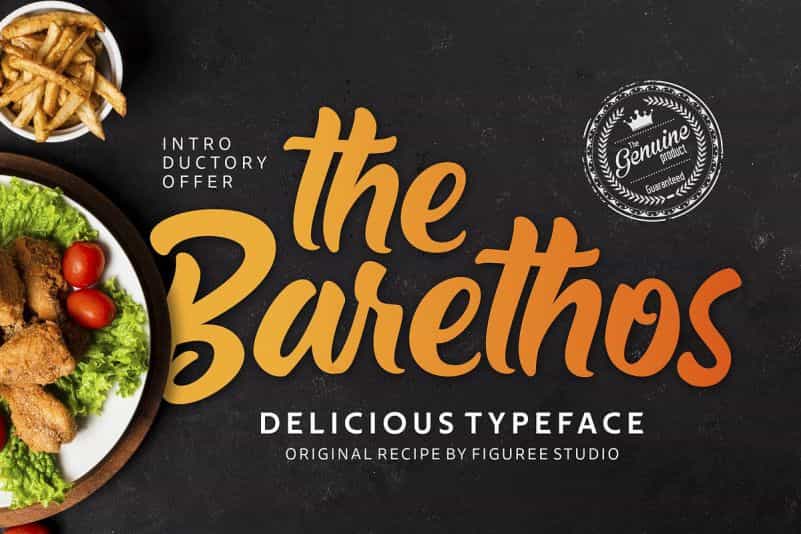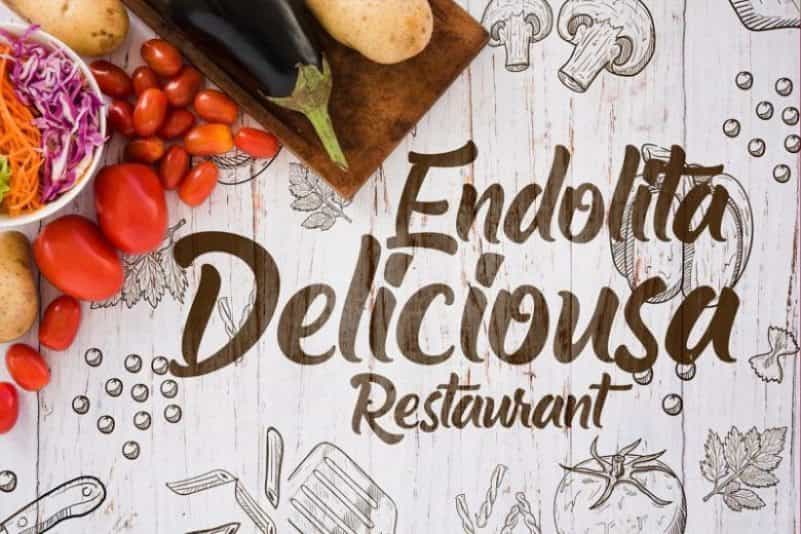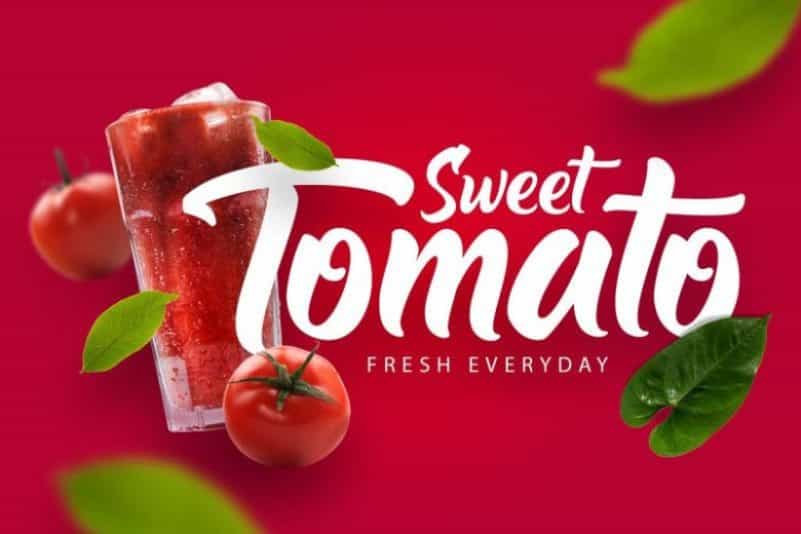
Discover The Barethos Script Font, part of the Brush Calligraphy collection—a versatile and unique font perfect for adding a personal touch to your projects. Download it for free and enjoy crafting designs with style, from invitations to social media posts. This font is available exclusively for personal use, giving you the freedom to create without limits. Unlock your creativity with The Barethos Script Font today!
The Barethos is a tasteful display font which was inspired by food. Fresh from the oven!! It’s a Delicious display font designed based on tasty food. It is very versatile and can be used for logos, packaging, branding and other creative designs. Looks good when used together with other fonts.